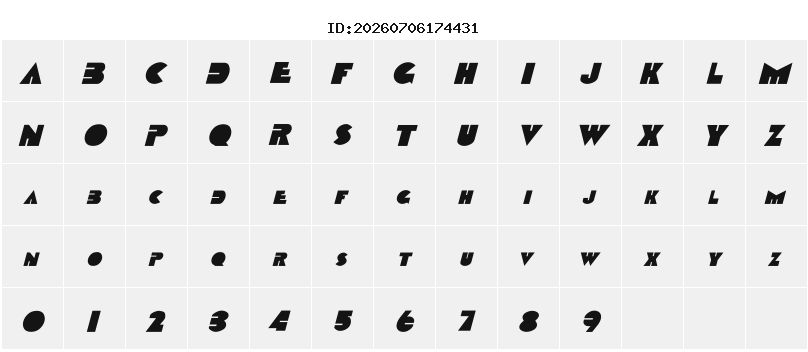
Devendra Italic Preview
• Font Name: Devendra Italic
• Font ID: Devendra Italic
• Full Font Name: Devendra Italic
• PostScript Name: Devendra-Italic
About Devendra Italic.ttf
Devendra Italic.ttf is a modern, elegant sans-serif font designed for ultimate readability and visual harmony. Perfect for branding, headlines, web design, and print materials.